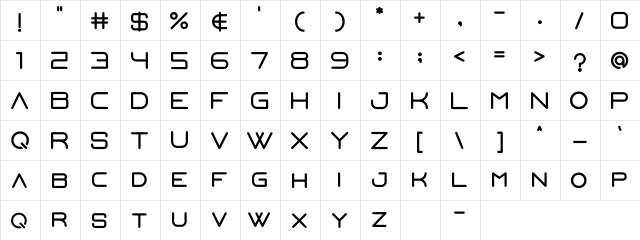
Steelr Regular Font Preview
Steelr Regular
Steelr Regular Font Details
| Designer | Jada Akbal |
Design Context for Steelr Typeface
Steelr takes a measured approach to typography — its balanced proportions and neutral character make it a reliable workhorse for both digital and print work.